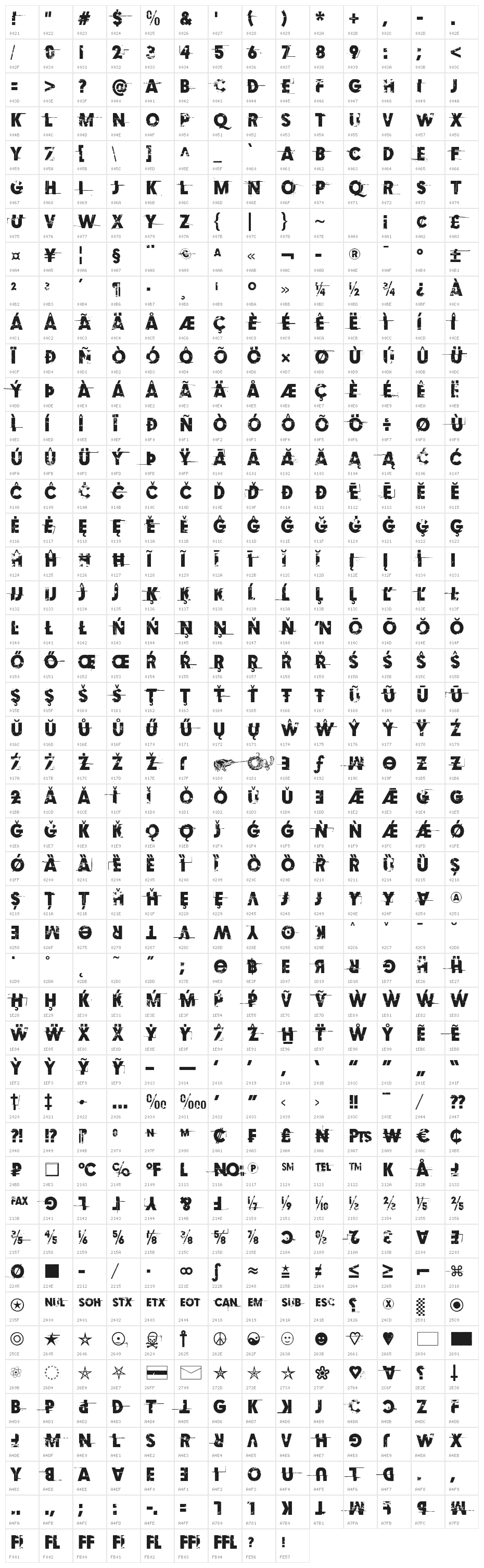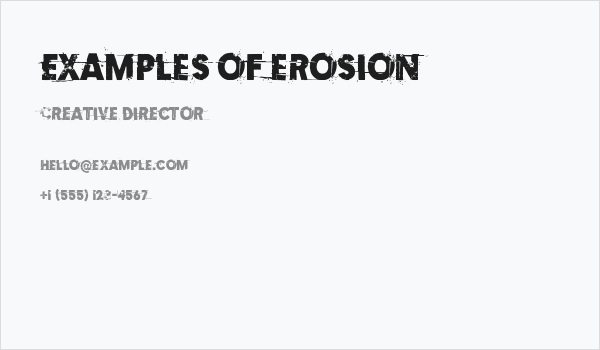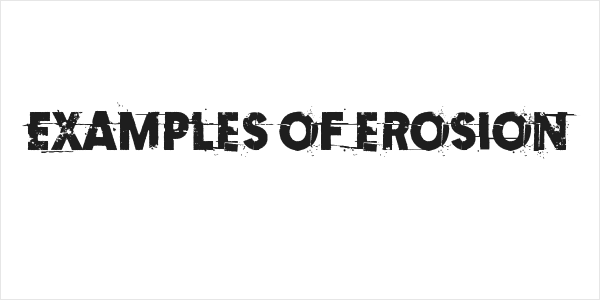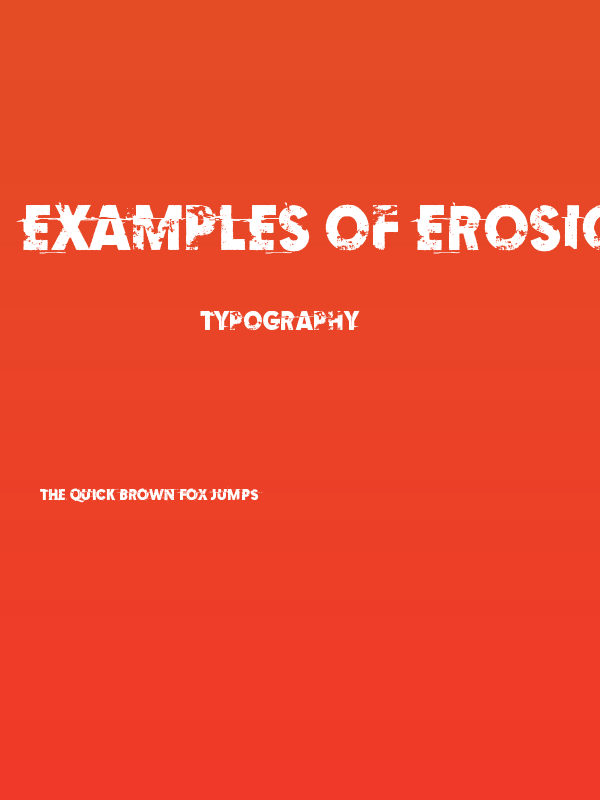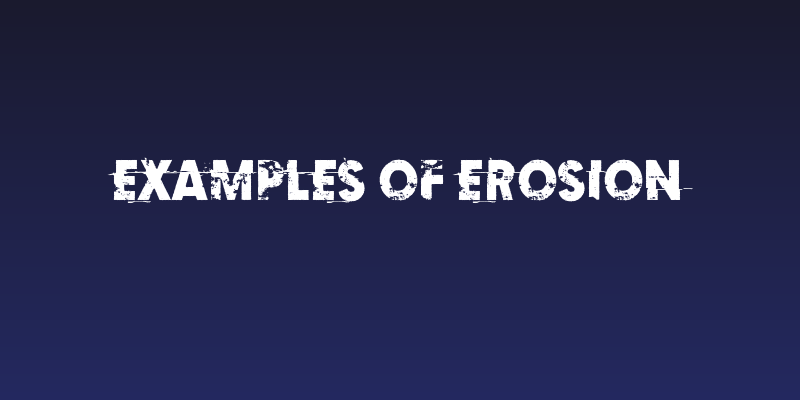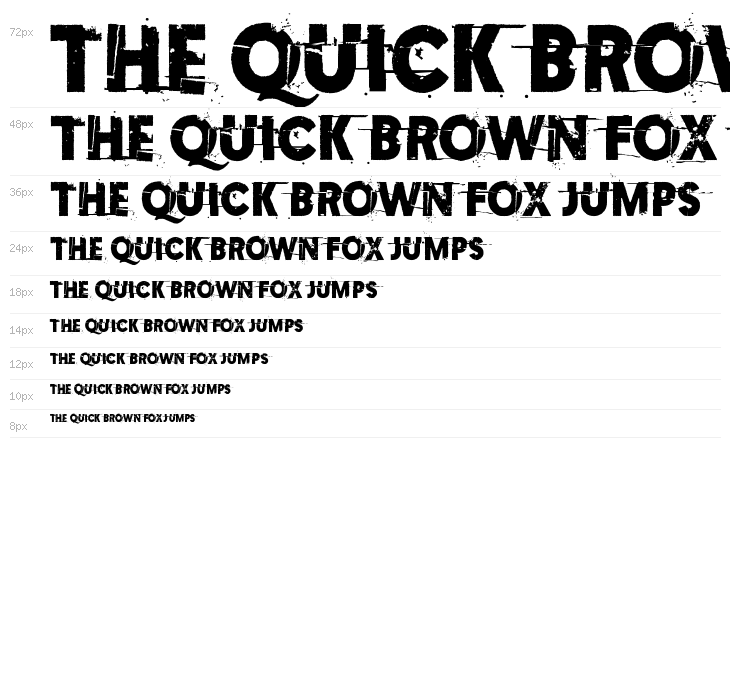
Examples of erosion Font
Examples of erosion Description
This font exhibits a distressed and eroded appearance, giving it a rugged and weathered look. The characters are bold and uppercase, with a rough texture that suggests wear and tear, as if they have been exposed to the elements over time. The irregular edges and inconsistent surface details contribute to its gritty aesthetic, making it ideal for designs that require a raw, industrial feel. The font maintains legibility despite its distressed style, with each letterform clearly distinguishable. This font is perfect for projects that aim to convey a sense of age, decay, or authenticity.
| Proposed Projects | Ideal for posters, album covers, branding for outdoor or adventure products, and any design needing a gritty, industrial touch. |